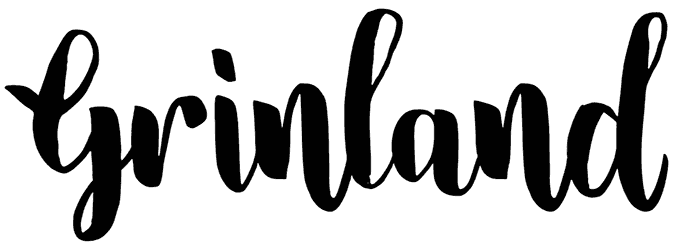
Headwind Font
If you need a distinct headline style or want to present a casual logotype, this grunge font can be exactly the answer. Headwind, with its cool and natural manuscript form, is a brush font. There is no option for numbers, but it would nicely act for many creative ideas like covers, flyers, planners, apparel, mugs, and so on.
Designed by: DumadiStyle